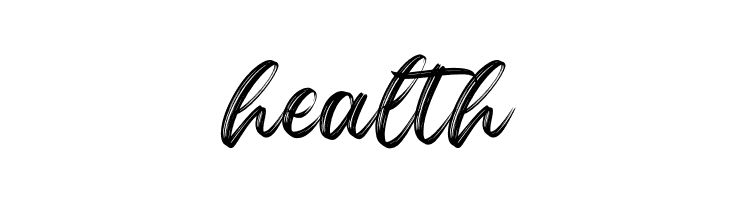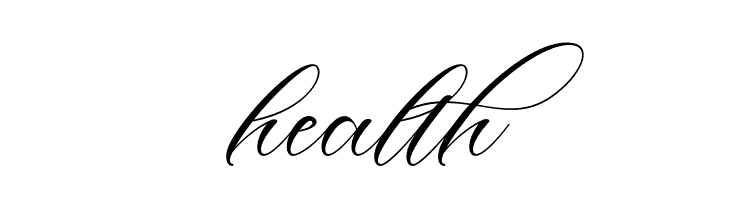
A bold, modern font with elongated vertical lines and sharp edges.
A bold, condensed font with high contrast and a modern, geometric style.
An elegant script font with flowing, cursive style and intricate flourishes.
An elegant script font with flowing, interconnected letters and high contrast strokes.
A decorative dot matrix font with a digital, pixelated style.
A bold, expressive handwritten font with high contrast and playful curves.
A playful, handwritten font with fluid strokes and a casual style.
A bold, expressive script font with fluid, hand-drawn letterforms.
An elegant, flowing script font with ornate swashes and graceful loops.